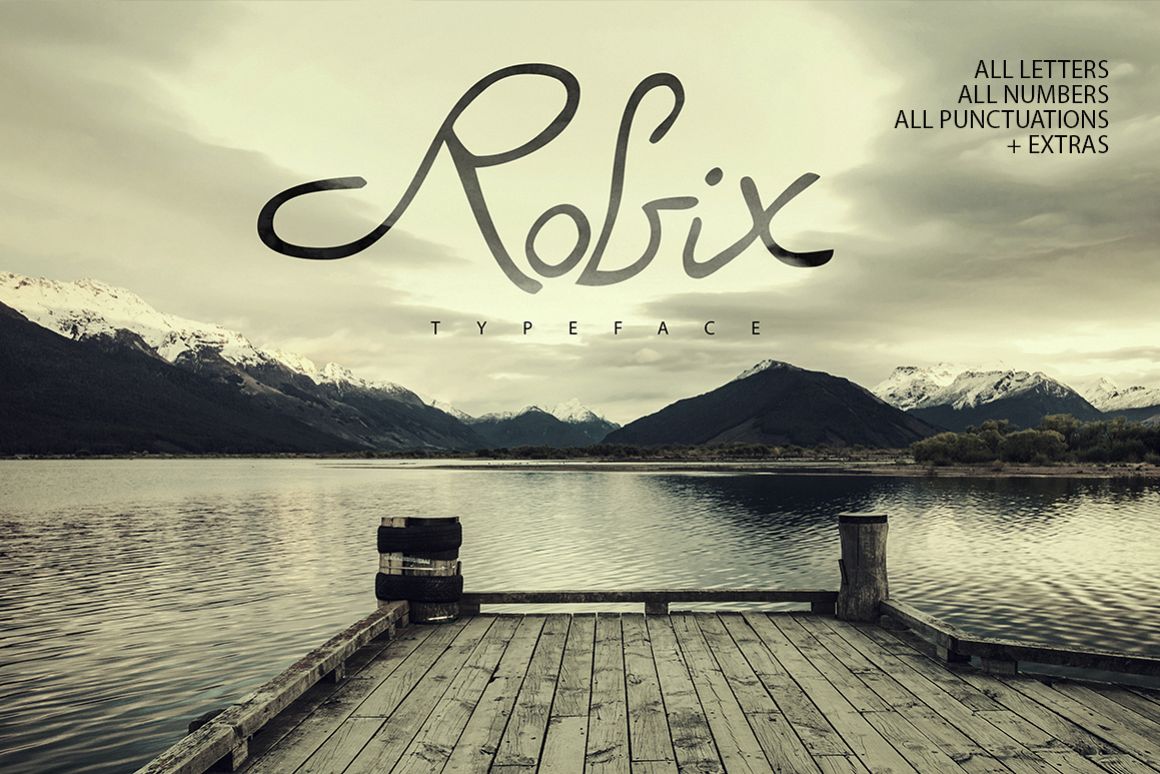
Robix Typeface Extras
Robix.
Robix is a unique handmade marker font. Perfect to take a different look on your designs.  20 “decorative borders” included to help on final design.
All letters. All punctuation. All numbers.
You receive 20 classic and unique design handmade elements.